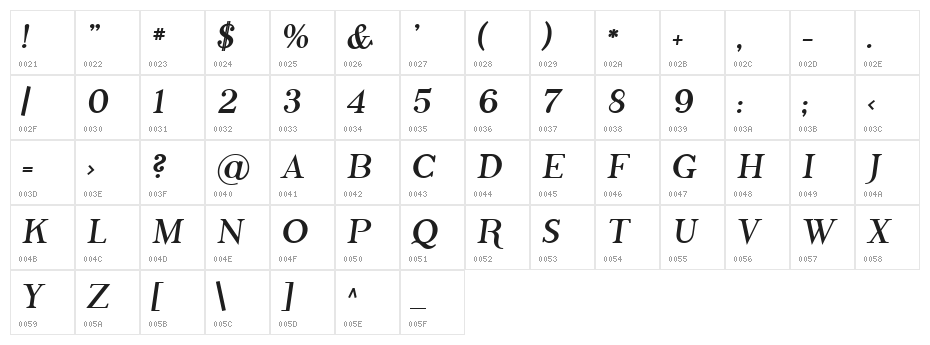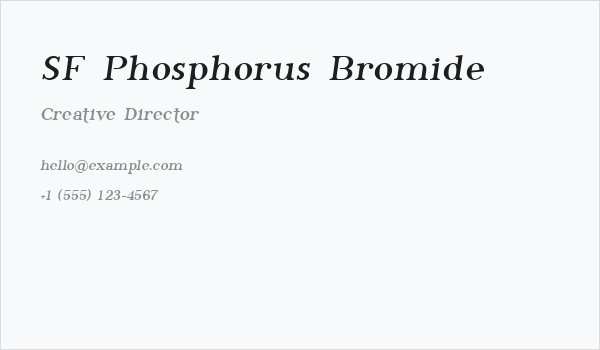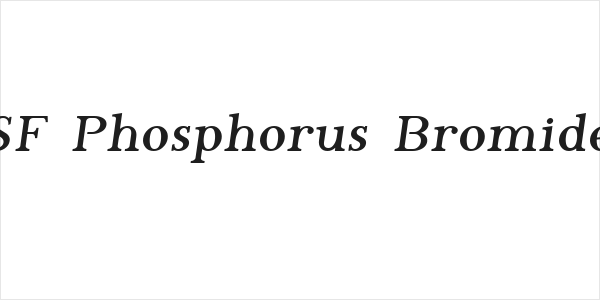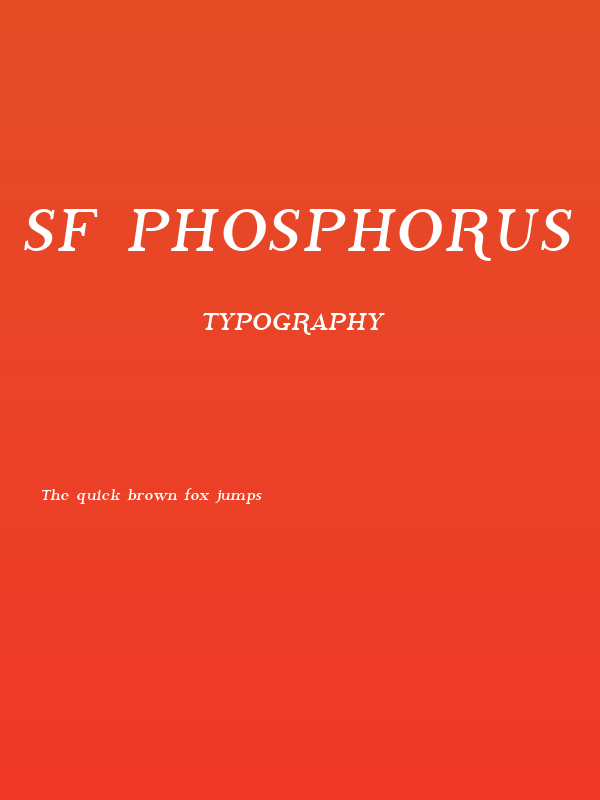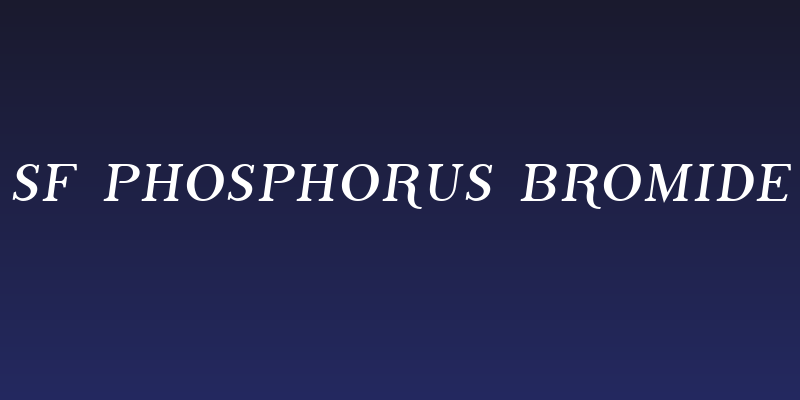
SF Phosphorus Bromide Font
SF Phosphorus Bromide Description
This font features a classic serif style with elegant curves and a slight slant, giving it a sophisticated and timeless appearance. The uppercase letters are bold and commanding, while the lowercase letters maintain a consistent flow with smooth transitions. Numbers are clear and distinct, making them easily readable. The special characters are well-integrated, maintaining the overall aesthetic of the font. The italic nature of the font adds a dynamic and refined touch, suitable for formal and creative applications.